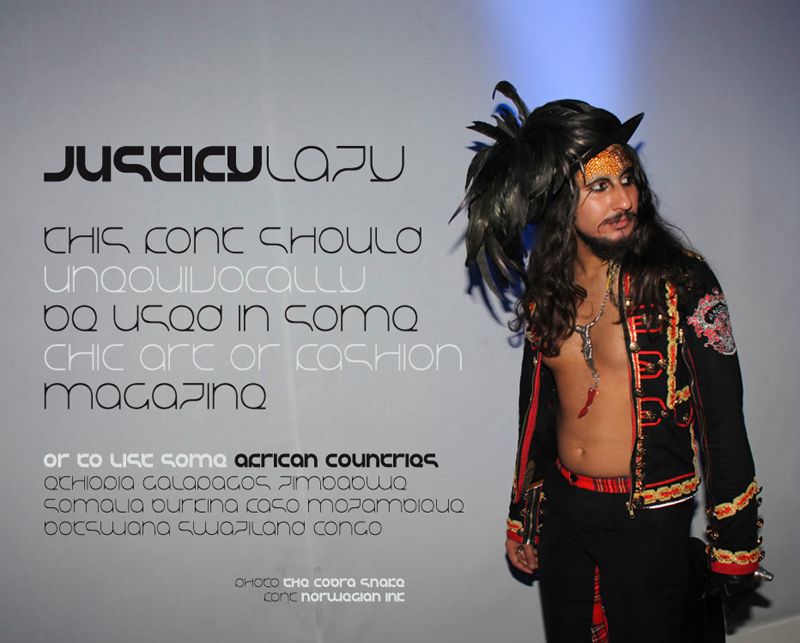
Шрифт Justify Lazy
JUSTIFYlazy
Designed by Frode Nordbø
Uppercase = Bold, Lowercase = Thin, Readability = Slowercase
Display font only - no numerals or glyphs included.
Designed by Frode Nordbø
Uppercase = Bold, Lowercase = Thin, Readability = Slowercase
Display font only - no numerals or glyphs included.